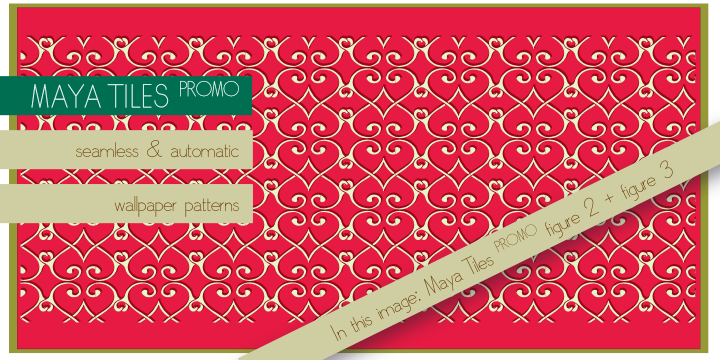
Font name: | Maya Tiles |
Author: | Aga Silva |
Note by Aga Silva | |
This collection of wallpaper tiles is a sample of Maya Tiles font. All patterns in this promo font are available from digits 0-9, If you are interested in purchasing the actual font (including 62 original patterns) or if you require some hints what you can do with it visit me at Myfonts: http://myfonts.us/CFOHdB/?refby=ASF or Etsy http://etsy.me/L23QOo |